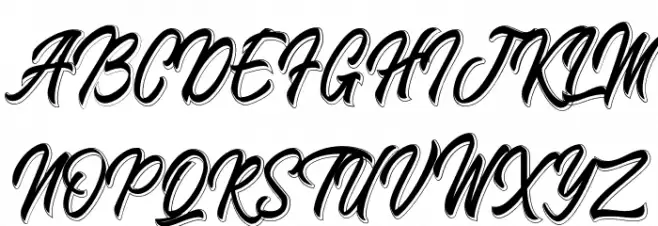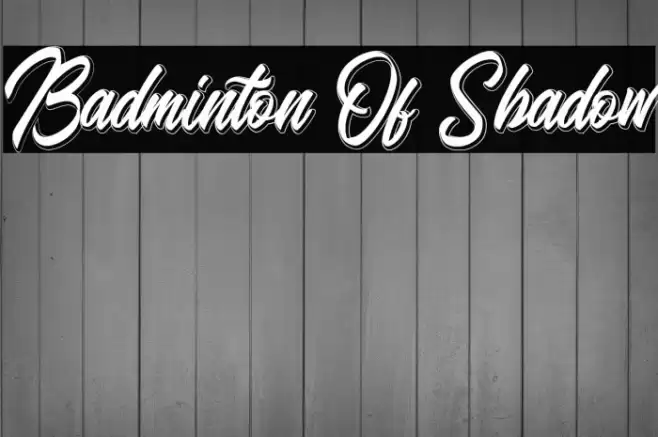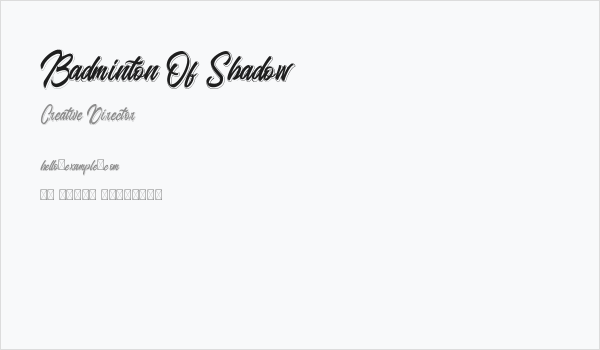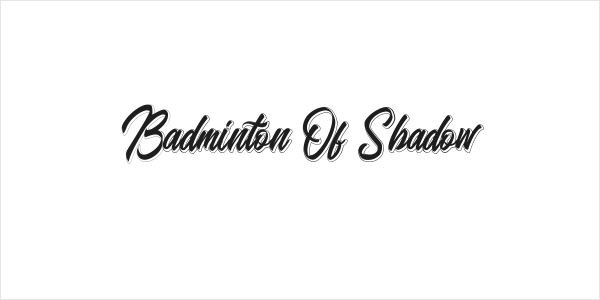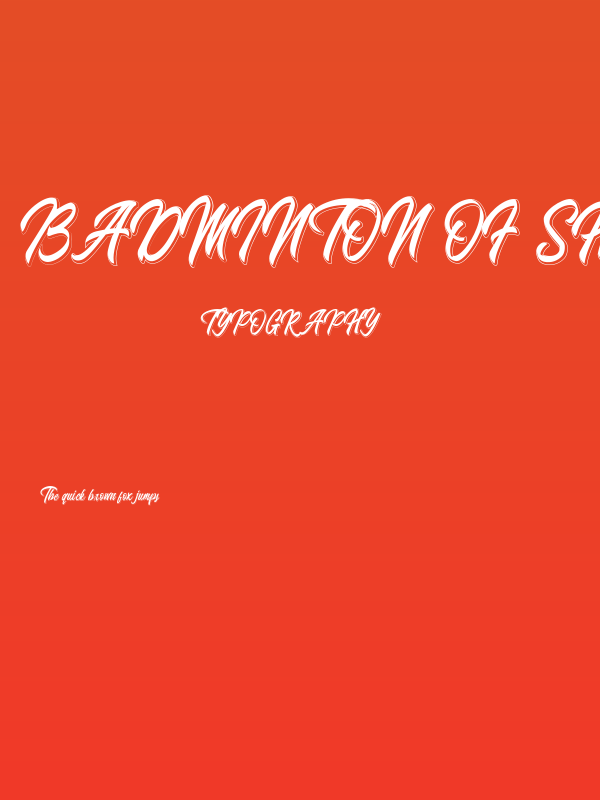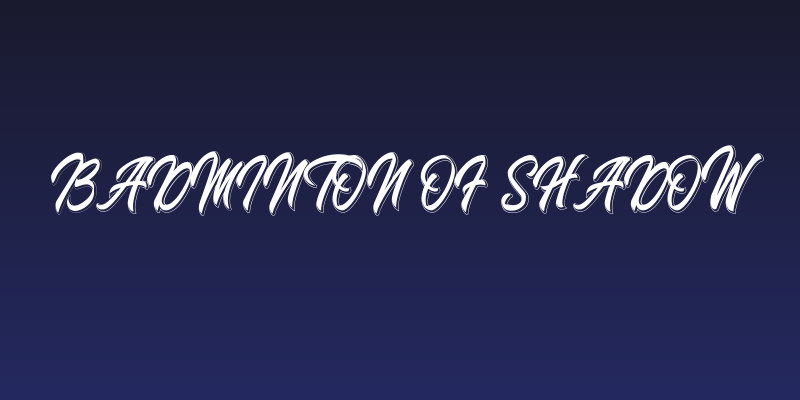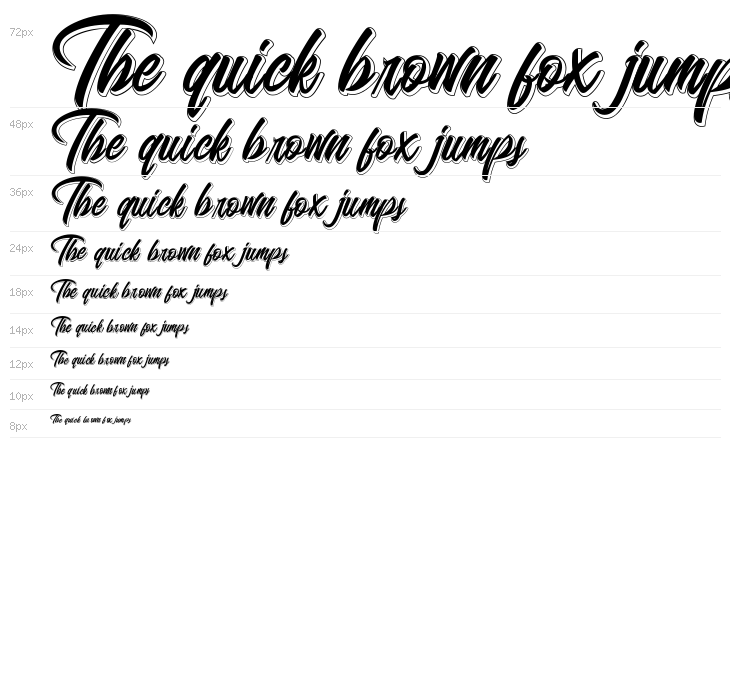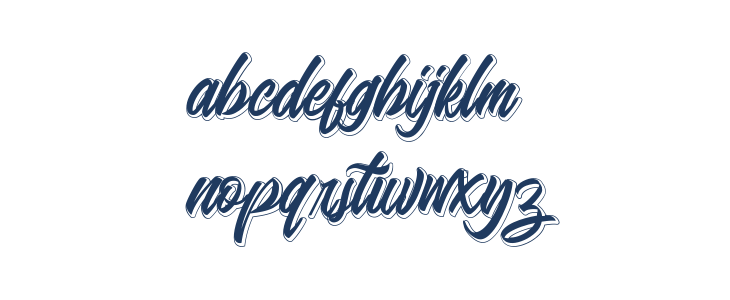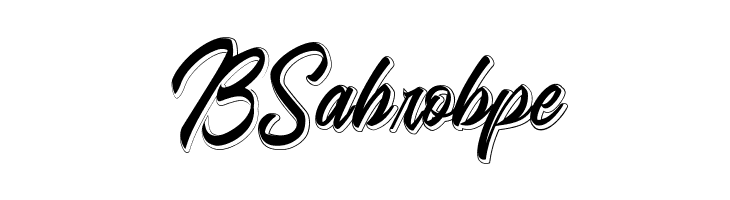
Badminton Of Shadow Font
Badminton Of Shadow Description
This font features a bold, dynamic script style with a strong presence. The letters are interconnected, creating a fluid and continuous flow that is both elegant and energetic. The strokes are thick with a slight shadow effect, adding depth and dimension to the characters. The uppercase letters are prominent and commanding, while the lowercase letters maintain a consistent style, enhancing readability. The numbers and special characters are designed to match the overall aesthetic, ensuring a cohesive look across all text elements. This font is ideal for projects that require a touch of sophistication and flair.